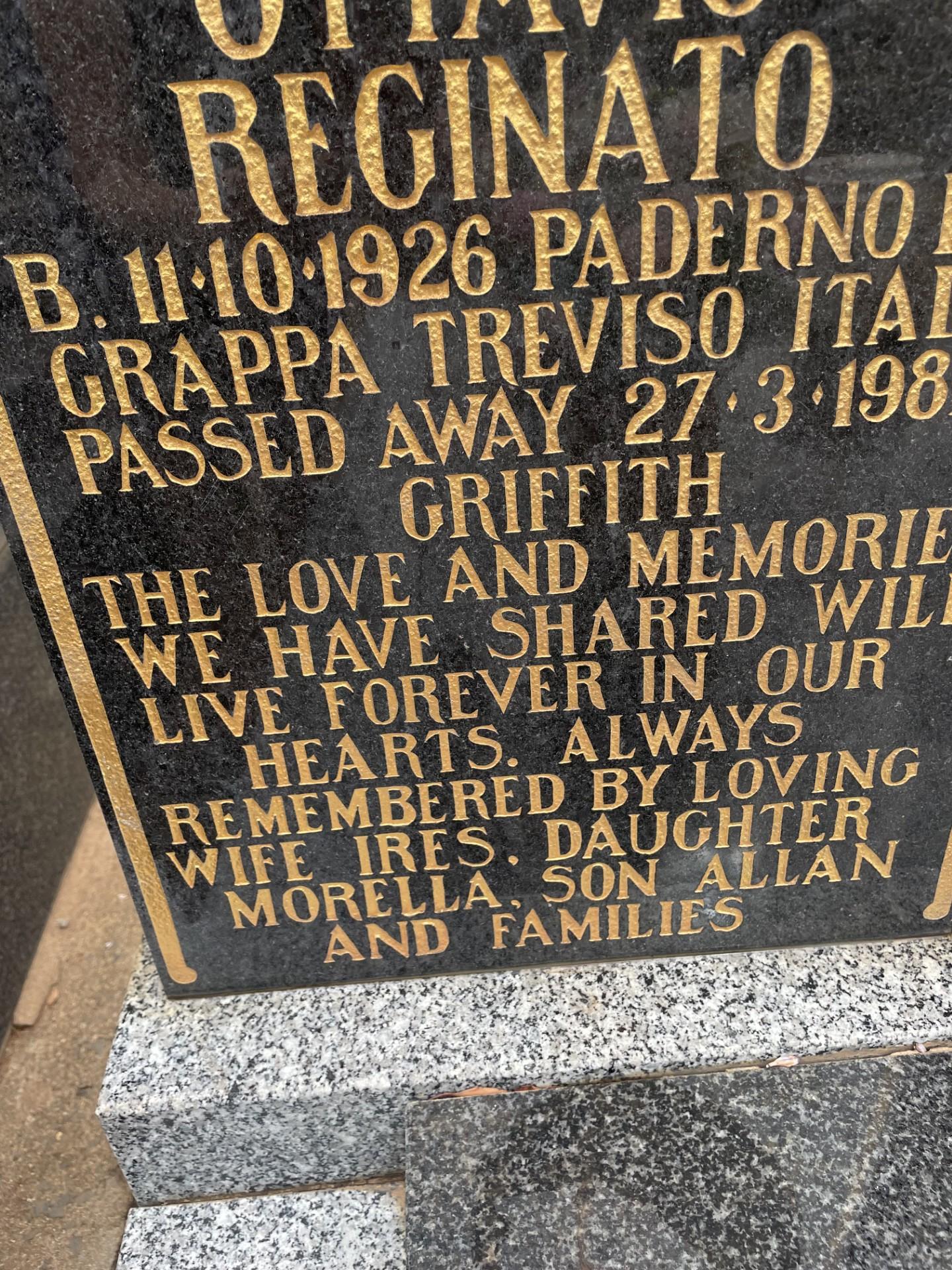
unknown font
Hello Les, this is all custom hand drawn lettering. If you would like help matching it feel free to use the Inscription Matching Service.